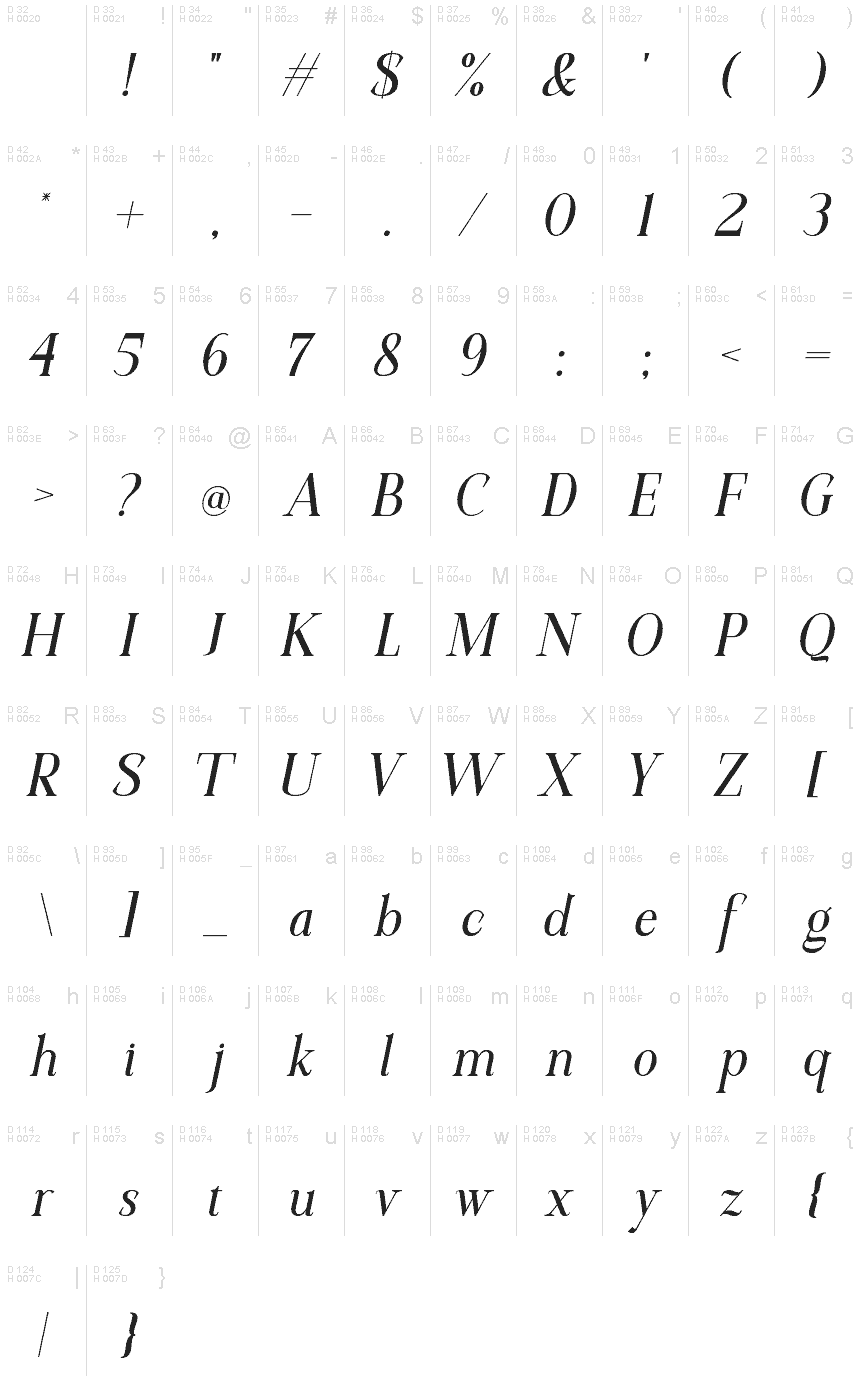
Cavergiz Italic
Cavergiz Italic font by Rvandtype is a sophisticated free serif font with elegant and professional touches. Classic influences mixed with modern detailing ensure a noticeable appeal that can compete against the biggest logos of brands. In harmony, all letters connect smoothly while preserving good readability; thus, being valid for both artistic and general purposes.
Use it to write compelling books across all genres and impress readers hooked from cover to finish. However, book covers are also a possibility for which Cavergiz won’t disappoint your projects. Other uses include posters, magazines, covers (high school and university), branding and signage design, headings in websites or apps…